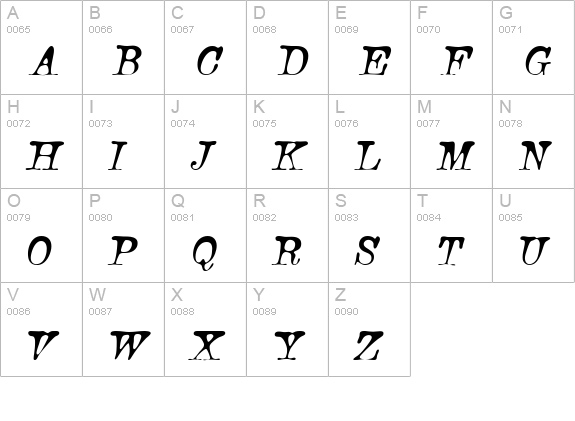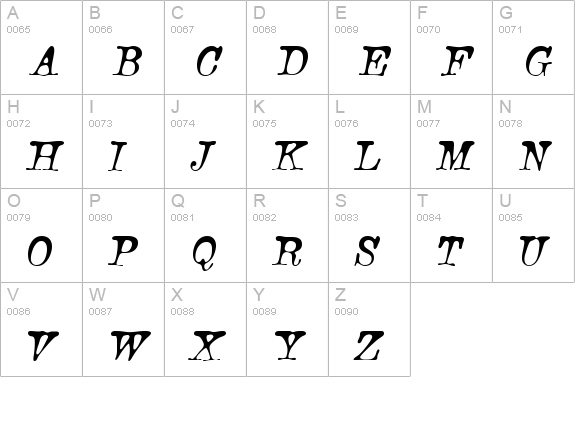
Bonsai-Italic Font Details
Bonsai-Italic is a distinctive, italic variant in the Bonsai typeface family \xE2\x80\x94 well suited to design and typography projects.
Bonsai-Italic font is a stunning typeface that exudes elegance and sophistication with its delicate curves and graceful strokes. Its italic style adds a touch of flair and refinement to any design project, making it perfect for use in branding, invitations, or editorial layouts. What sets Bonsai-Italic font apart is not only its beauty but also its versatility. Whether you're looking to create a romantic wedding invitation or a sleek corporate logo, this font has you covered. Its timeless design ensures that it will remain a classic choice for years to come. Best of all, Bonsai-Italic font is completely free to download at FontsMarket.com. So why wait? Enhance your projects with the beauty and elegance of Bonsai-Italic font today!